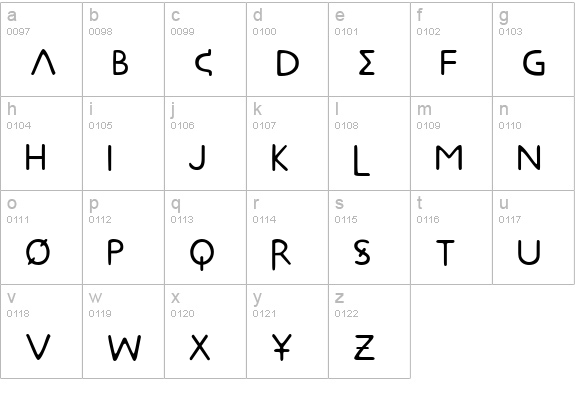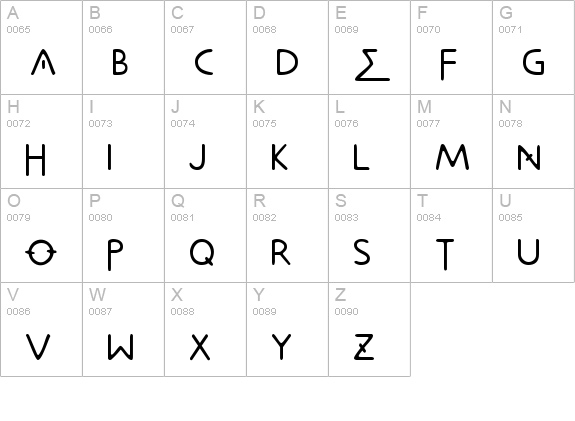
Metrolox Font Details
Introducing Metrolox font, a modern and stylish typeface that exudes sophistication and elegance. With its clean lines and contemporary design, Metrolox is perfect for a wide range of design projects, from branding to packaging to digital media. This versatile font features a sleek and minimalist aesthetic that is sure to make your text stand out. Whether you're creating a logo, a website, or a poster, Metrolox will bring a touch of refinement to your work. And the best part? Metrolox is available for free download at FontsMarket.com. That's right, you can elevate your design projects with this high-quality font without spending a dime. Don't miss out on the opportunity to enhance your creations with Metrolox font today!